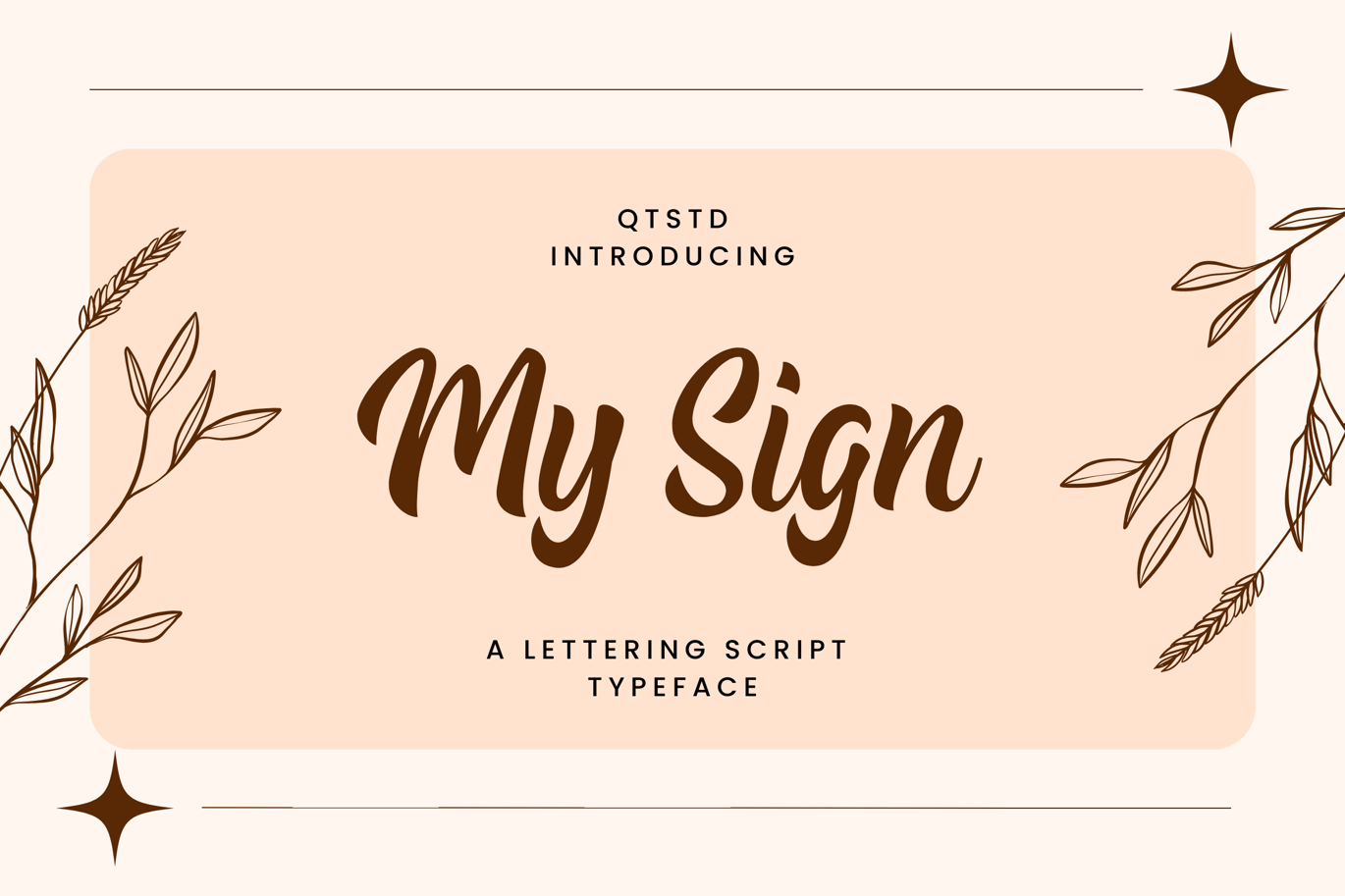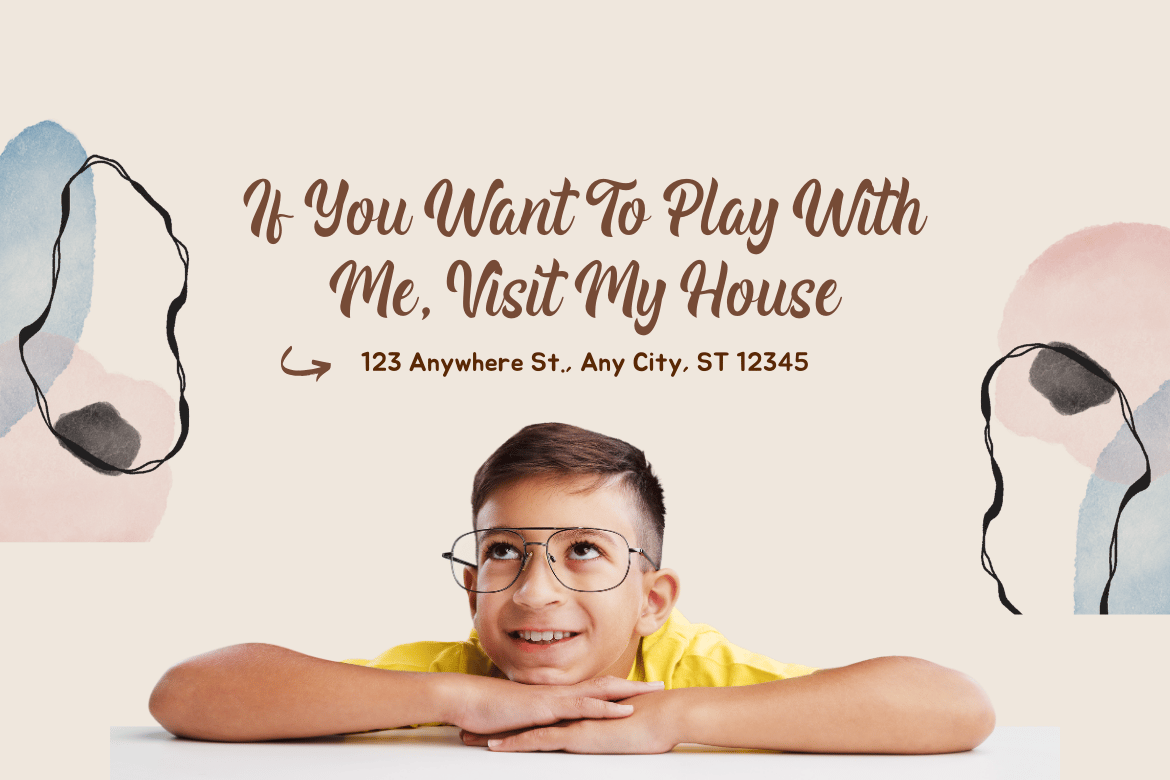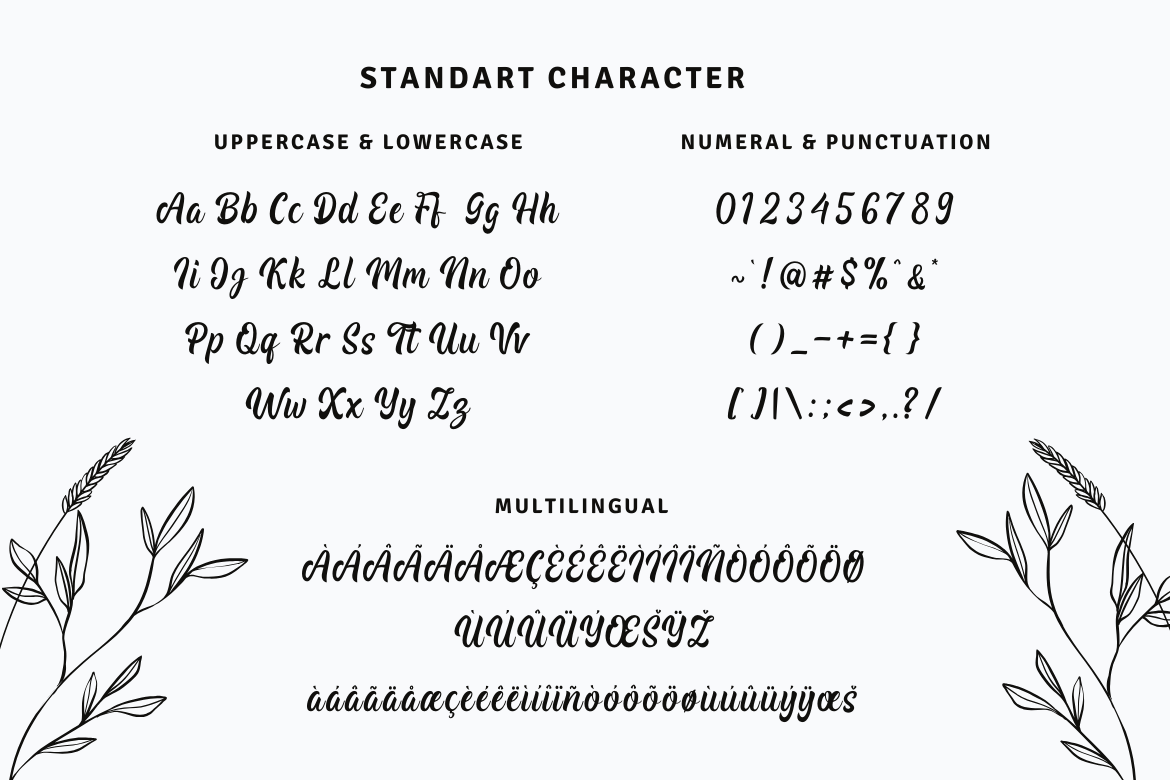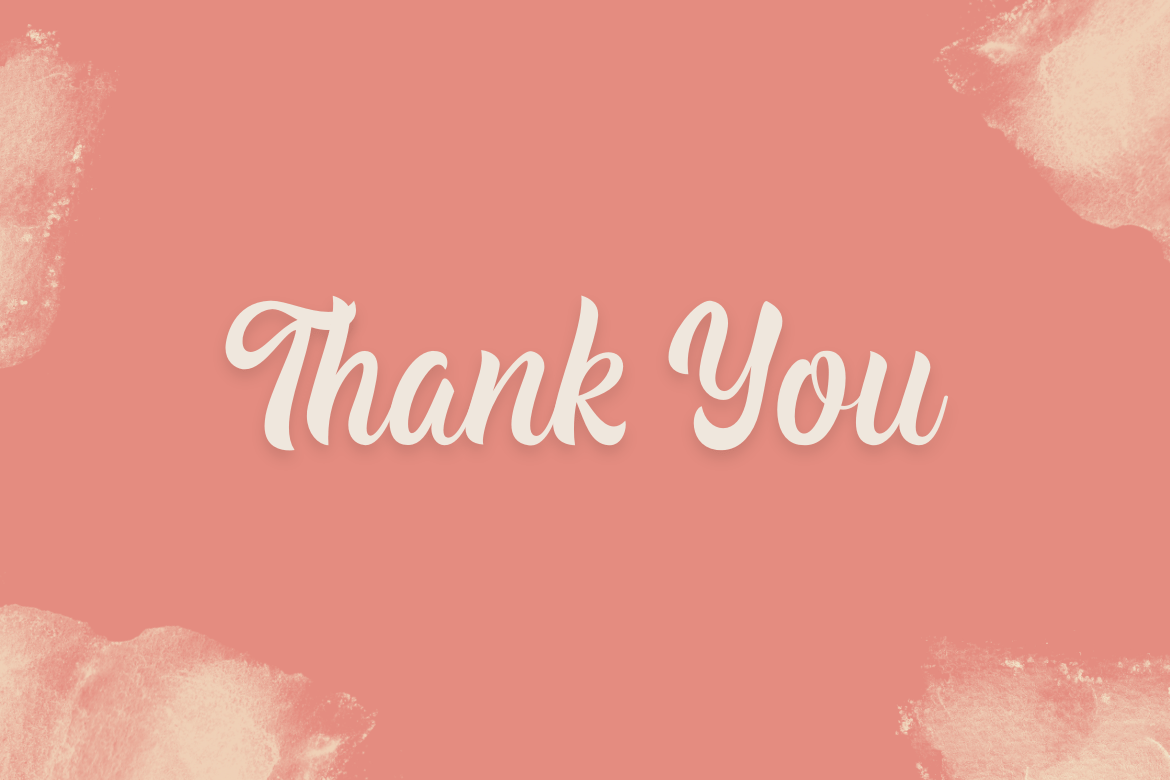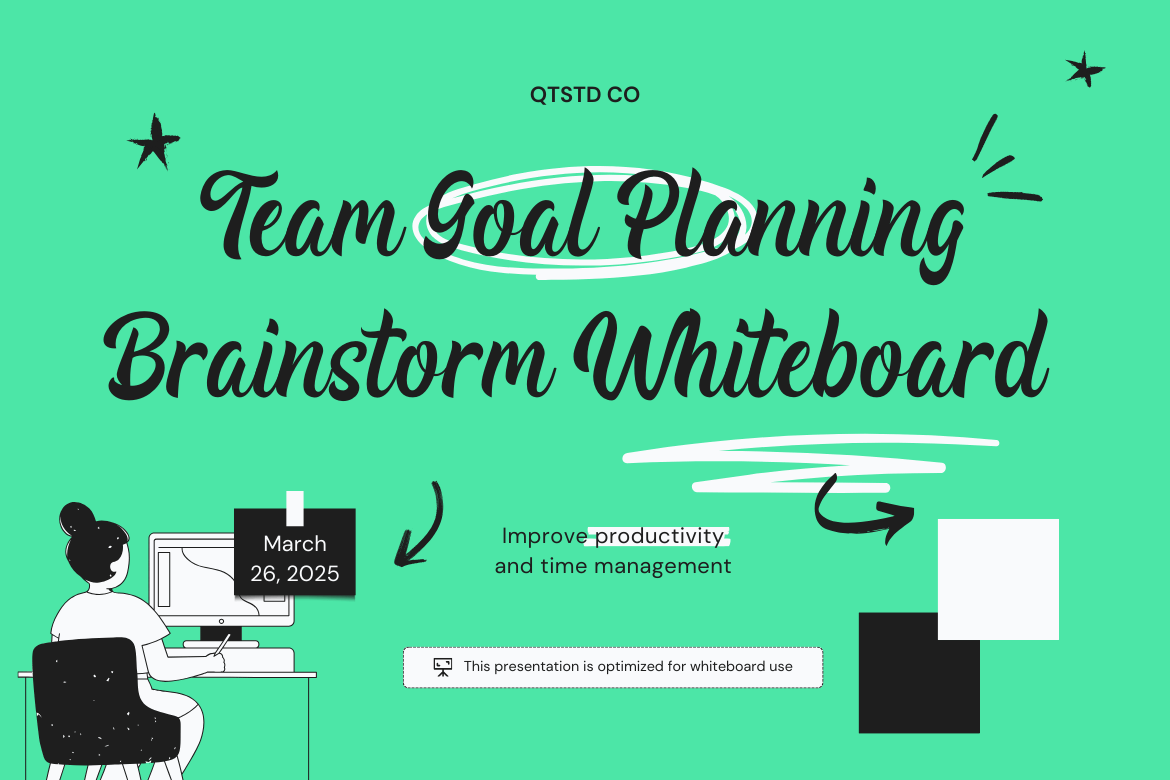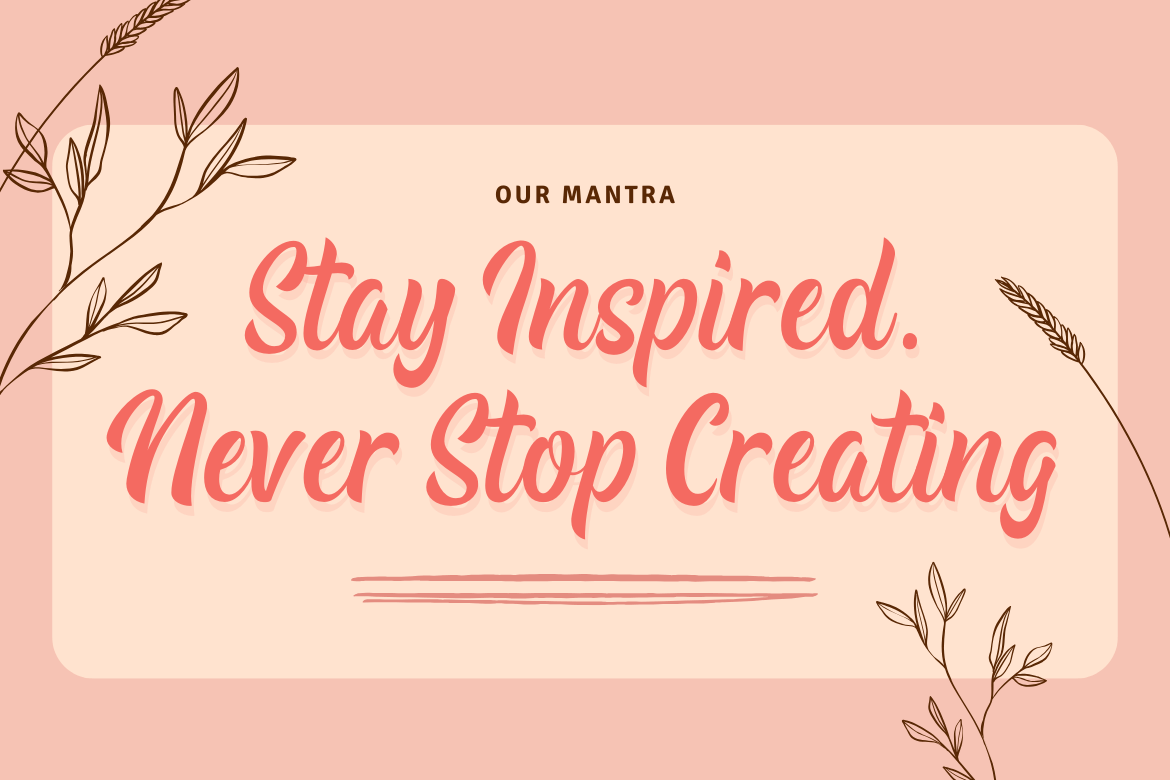
My Sign – A Lettering Script Typeface
Embark on a journey of expressive typography with “My Sign,” a lettering script typeface that turns words into visual poetry. This typeface is more than just letters; it’s a canvas for your creativity, allowing you to tell your story with every stroke and curve. “My Sign” offers a perfect blend of fluidity and structure, making it a versatile choice for a range of design projects.
Whether you’re working on invitations, branding, or social media graphics, “My Sign” brings a touch of personalized elegance. Each character is a brushstroke of individuality, creating a harmonious flow that adds a unique signature to your visual identity.
Elevate your designs with the artistry of lettering script, and let “My Sign” become the distinctive voice of your creative expression.